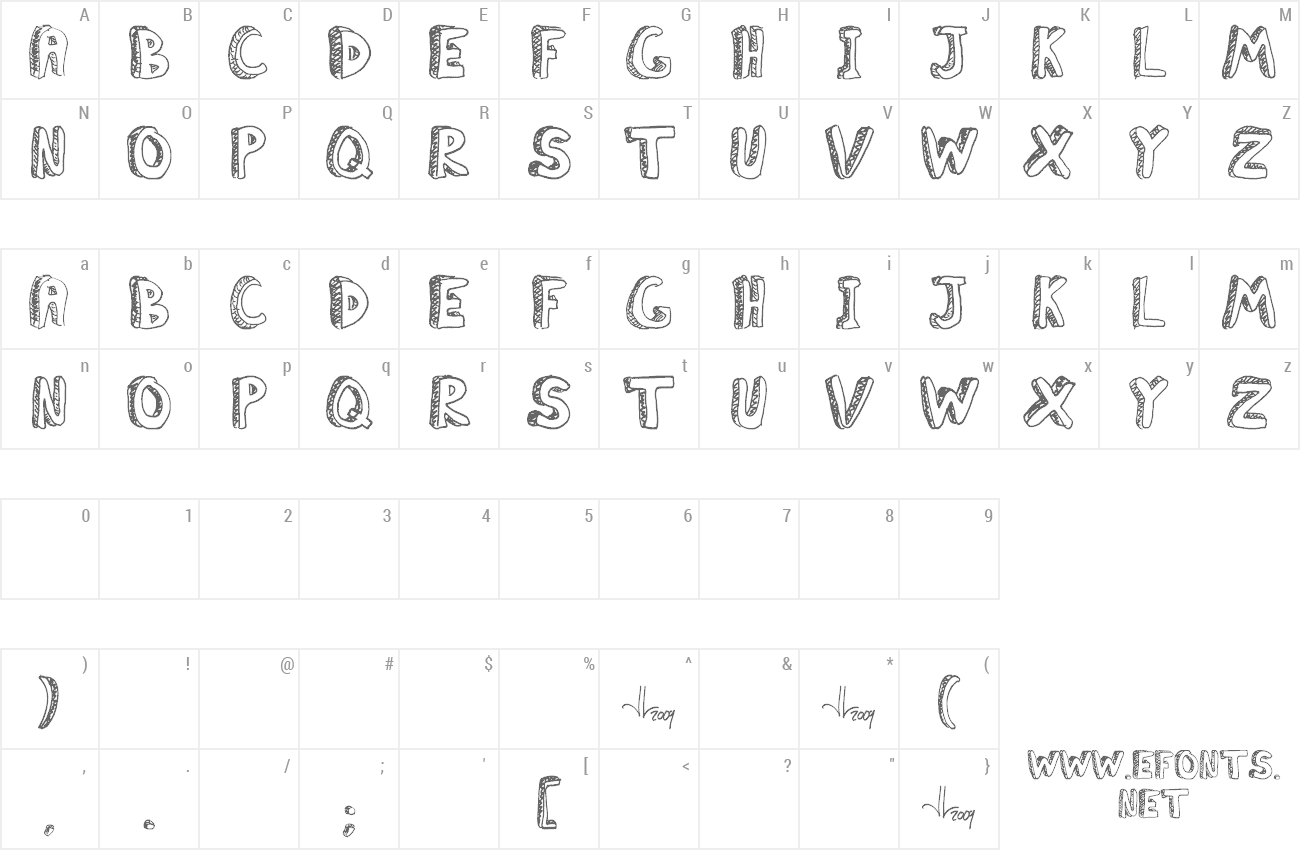
| Font name: | Classroom Boredom |
| Author: | John Laubach |
| Note by John Laubach | |
| A Bubble letter font created entirely by Me, why not donate $ so i can continue to create quality fonts? |